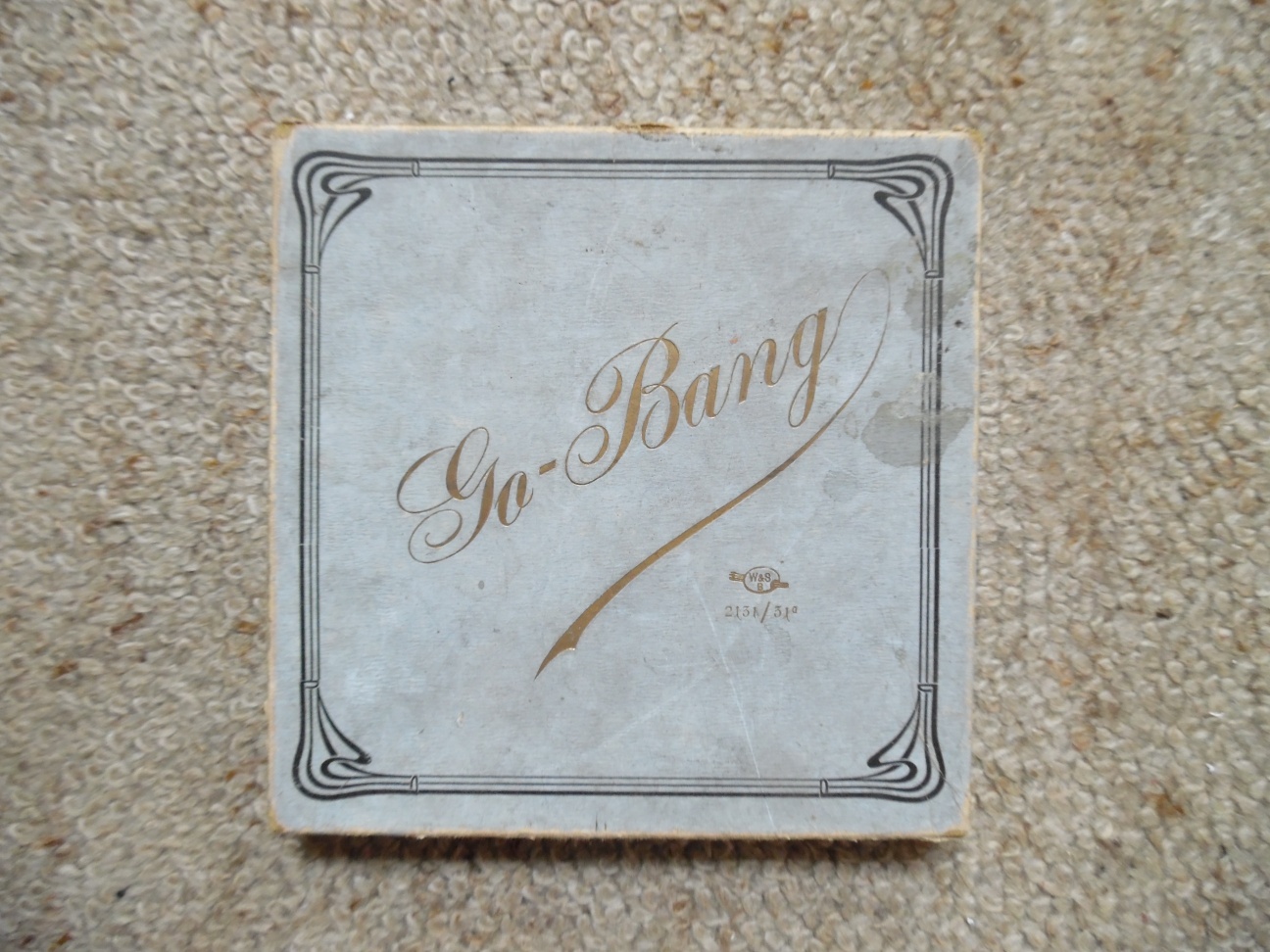
What font is used by German game publisher W&SB?
In order to date an end 19th, begin 20th, century German game of Go-Bang, the only thing I seem to have is the typeface of the numbers 1,2,3 and the lower case "a" on the box.
Could someone please recognize the type and date, or period, of use?
I have searched using several online methods on the peculiar digit "1" and the lower case "a" with no succes. They simply don't come up with anything near.
By the way, WS&B stands for Werner and Schumann, a German publisher of games and toys from at least 1879 to 1925.
With a loupe I had a closer look at the lower case "a". Please find a crude reconstruction of what it looks like. No, not a "G". I would say Jugendstil?
Looks like lettering, in which case you won’t be able to identify typefaces or narrow down when this was made.
The letters did leave an impression in the paper.
Furthermore in the sequence 2131/31a the last digit 1 is placed lower. That would not be done when lettered I think? Would this "1" be a slightly misplaced lead type?
Still when lettered there might be a similar typeface that served as an example...
OK, here is the full box. The letters Go-Bang are embossed too (that is, they lie deeper). The decoration is not.
Yes, they are serial numbers or rather identification numbers. These represent game 2131 and version 2131a.
For what it's worth I do recall having seen this type of digit "1" in an old book long ago, but can't recall where...  So that does not help much. The type "a" only struck me a few days ago, I had not noticed it for months. Could it be some jugendstil version of a gothic type? ( I like it). Searching google for that did not help.
Sorry now I understand what you meant by serial number. No it is not a number for each individual copy, but for each different set of games. In this case a box that can hold game type 2131 or 2131a
One can find a similar ‘a’ in Künstlerschrift (F. Schweimanns for D. Stempel, 1901). So yes, Jugendstil sounds about right for the period.
And the year would fit very well with the time I suspected for this game.
There is a slight difference. However. Too much of a coincidence if the numerals would be similar as well... so are they to be found there as well?
This pdf has a whole page with examples, but no numerals...
Nevertheless it is the only type I have seen with an opening at that spot in the "a" but for some "handwritng" types. And both have a jugendstil look. The shape of  "1" in Künstlerschrift would be interesting to see. Would it be in "Hauptprobe der Schriftgiesserei D. Stempel"? Or is that simply the pdf page given above?
Bavaria is another non-script Jugendstil face with an ‘a’ that is open at the top right. It is less similar, though.
The numerals look like they could belong to (or were based on) (Neue) Schwabacher, first cut by Albert Anklam in 1876 for Genzsch & Heyse. There are numerous versions, by virtually all German type foundries, with differences large and small. Gerhard Helzel’s digitization named Schwabacher (1996–97) based on an unspecified source features numerals that come close, see the image below. So does Dieter Steffmann’s freebie Yonkers (2001). These Schwabachers were in common use for several decades, so unfortunately this won’t really help you with dating the game.
Indeed, the Schwabacher numerals are the same. 1, as well as 2 and 3.
That leaves the Jugendstil "a" to put a narrower date to it.
Ralf: what is the "1" like in the Hauptprobe for Künstlerschrift?
Does it have types with similar "a"?
Riccardo Sartori, yes it was found like that on "Tram-spel" from around 1880.
From another source I now know that the W&S B existed from 1841 to 1930